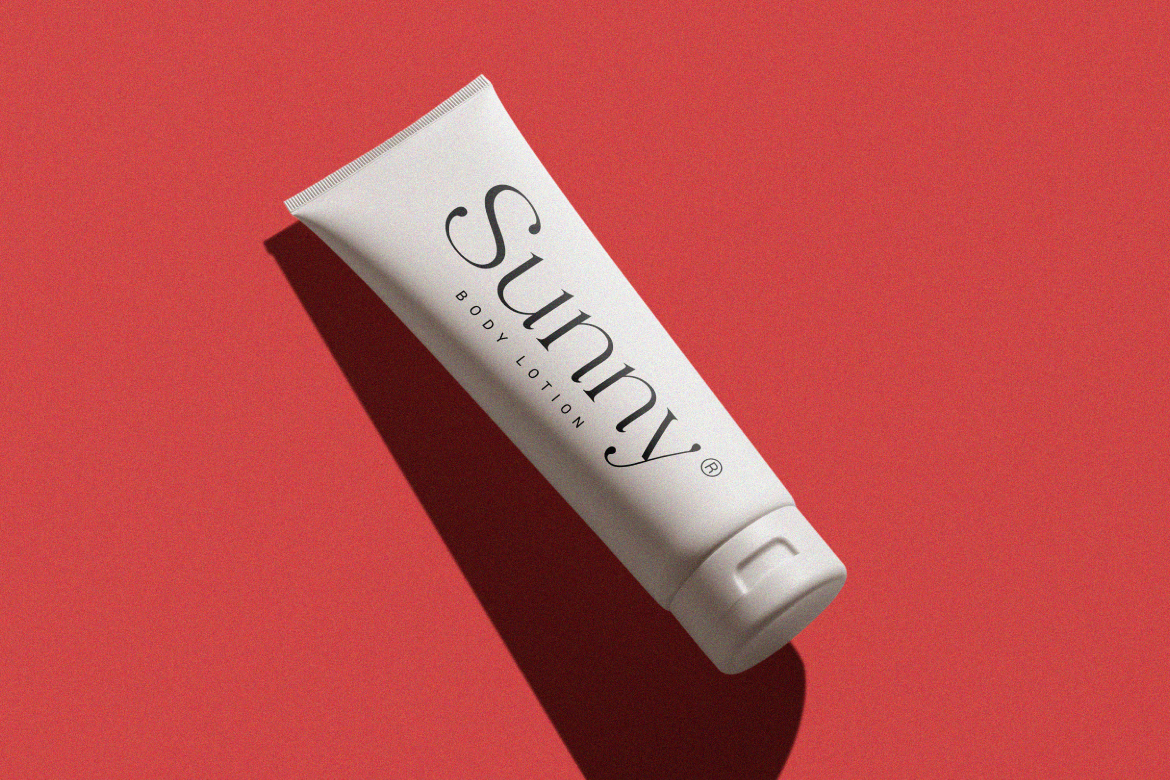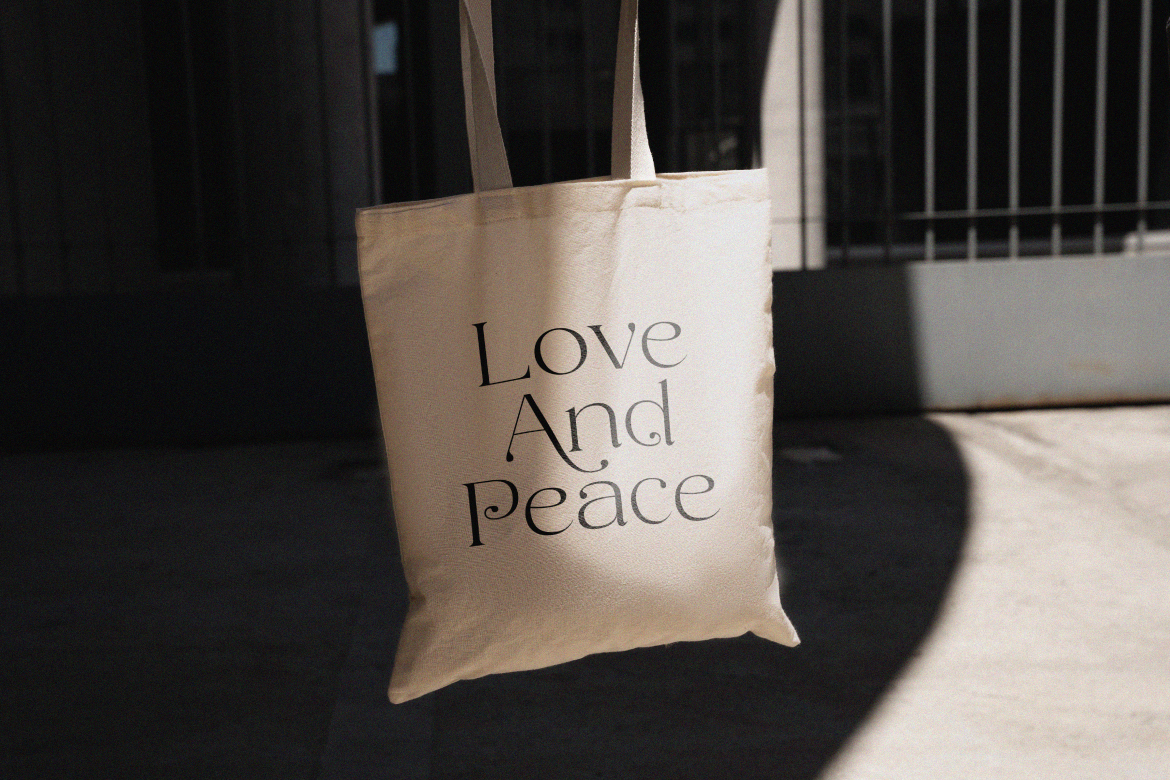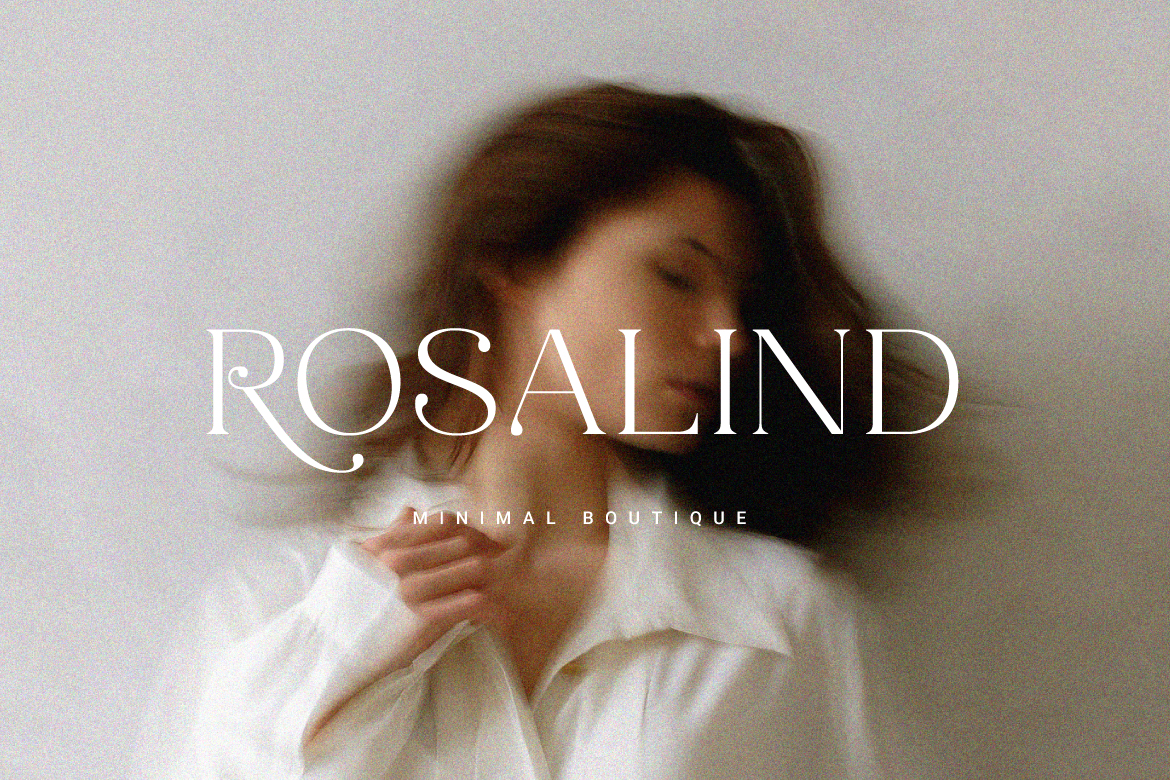
Cherla – Chic Serif Font
Cherla is a modern serif typeface with a pretty and unique touch. Accompanied by several alternative characters to beautify. Suitable for logo design and branding.
- Features: Uppercase, Lowercase, Numeral, Punctuation, Multilingual & Alternates.